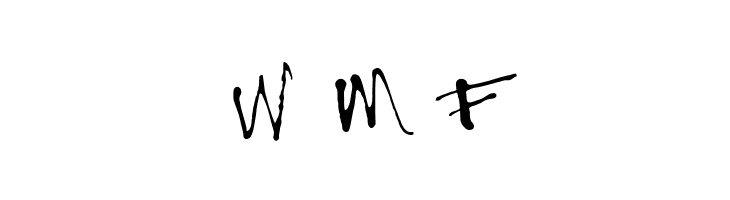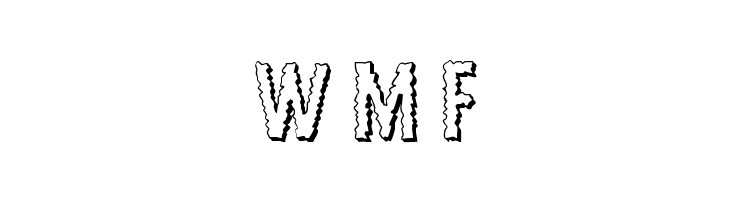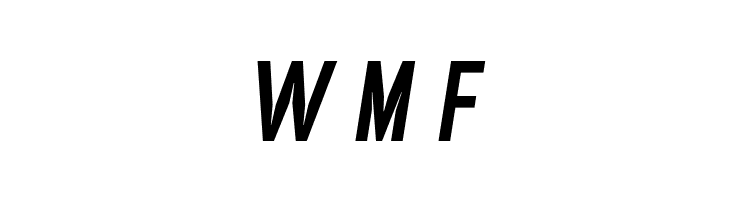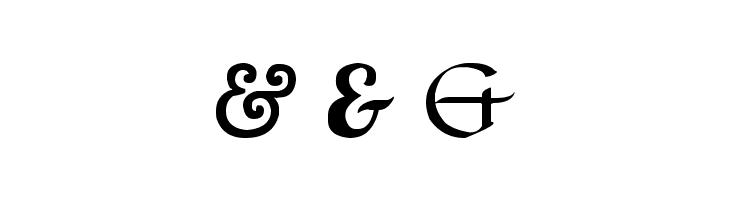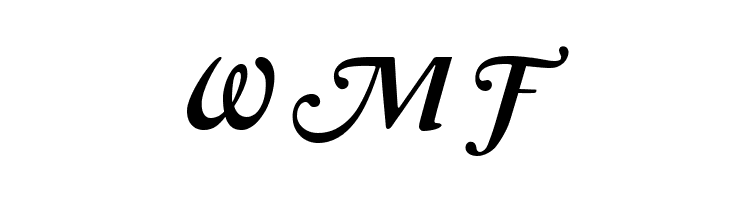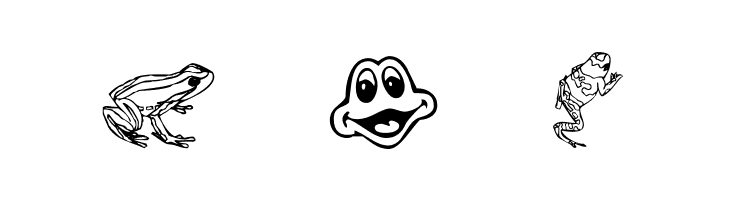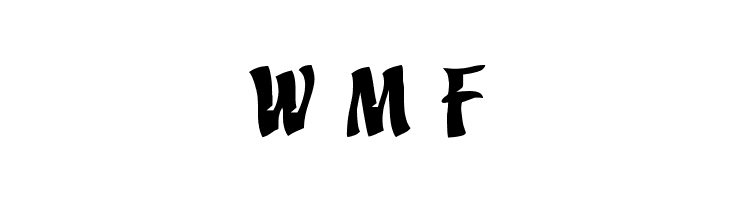
A modern, semi-bold italic font with a sleek, condensed style.
A casual, handwritten font with a playful and informal style.
A diverse collection of ampersand designs ranging from modern to vintage styles.
An elegant script font with classic, flowing curves and decorative flourishes.
A decorative font with detailed amphibian illustrations for each character.
A bold, brush-like decorative font with dynamic and energetic characters.
A bold, jagged font with an electrifying and dynamic style.
A bold, playful 3D font with a jagged outline.